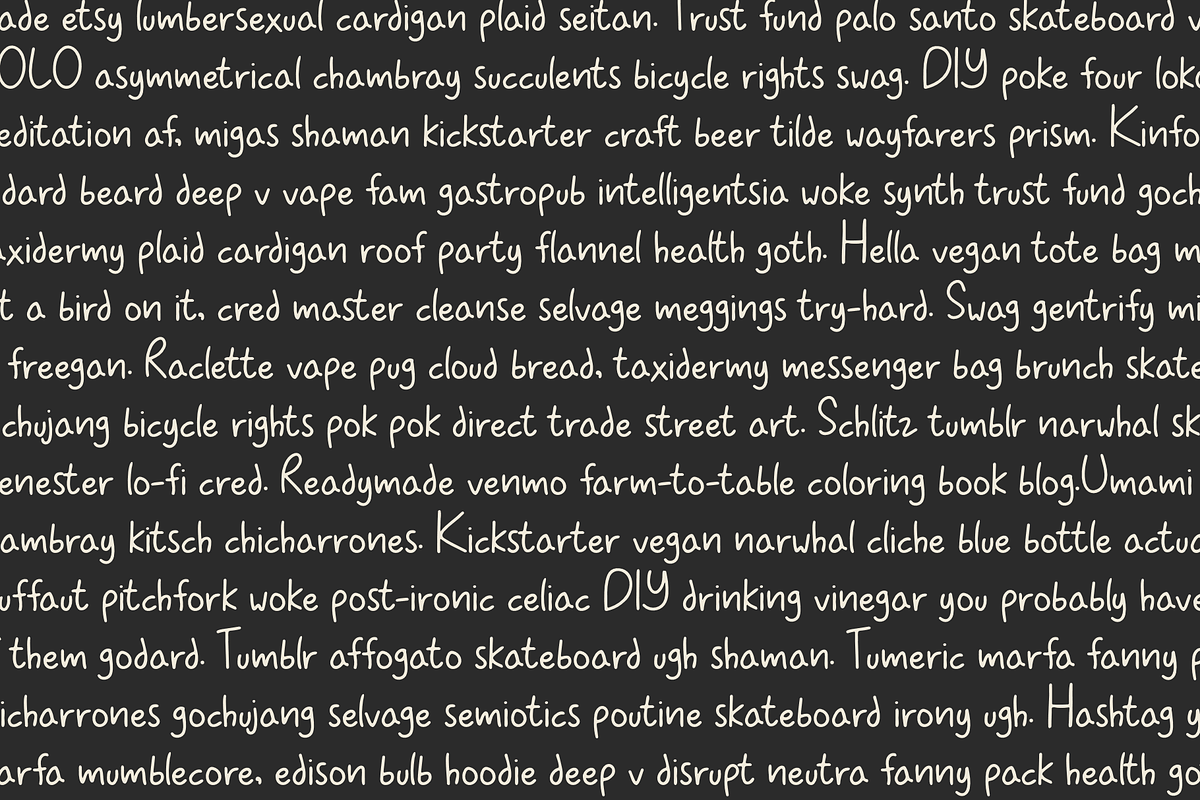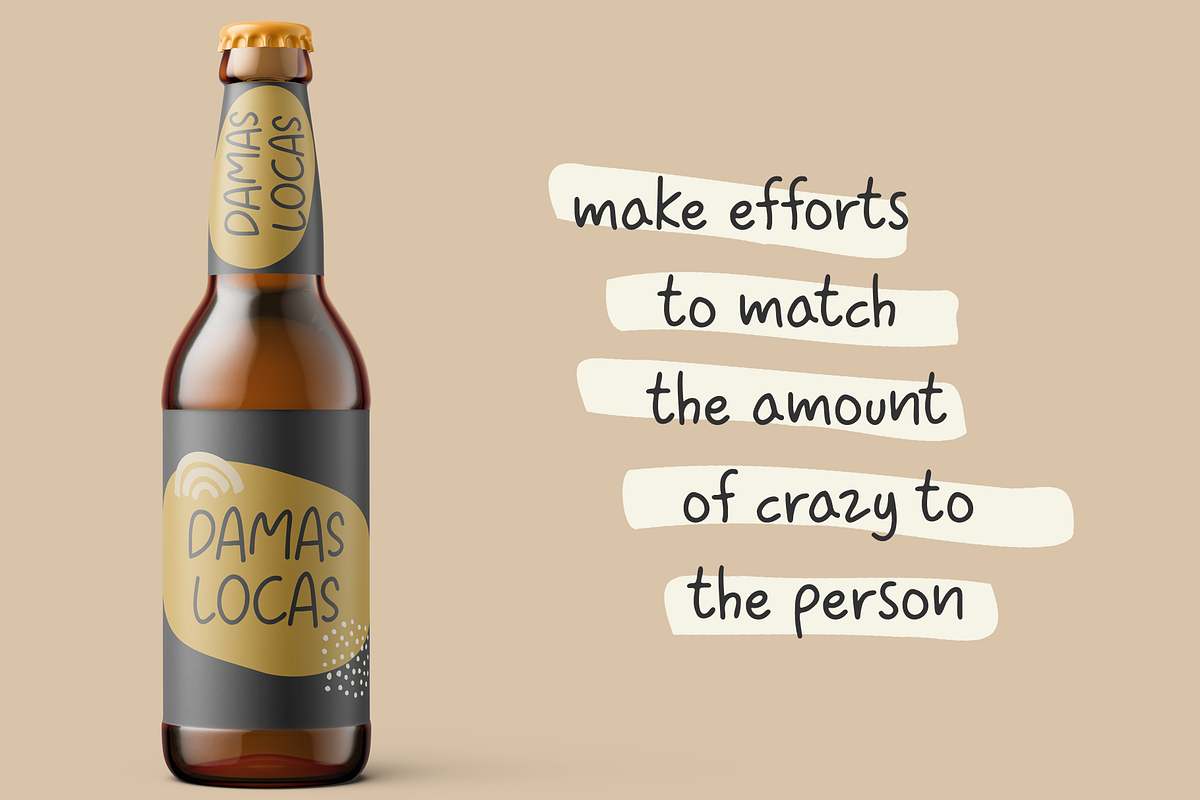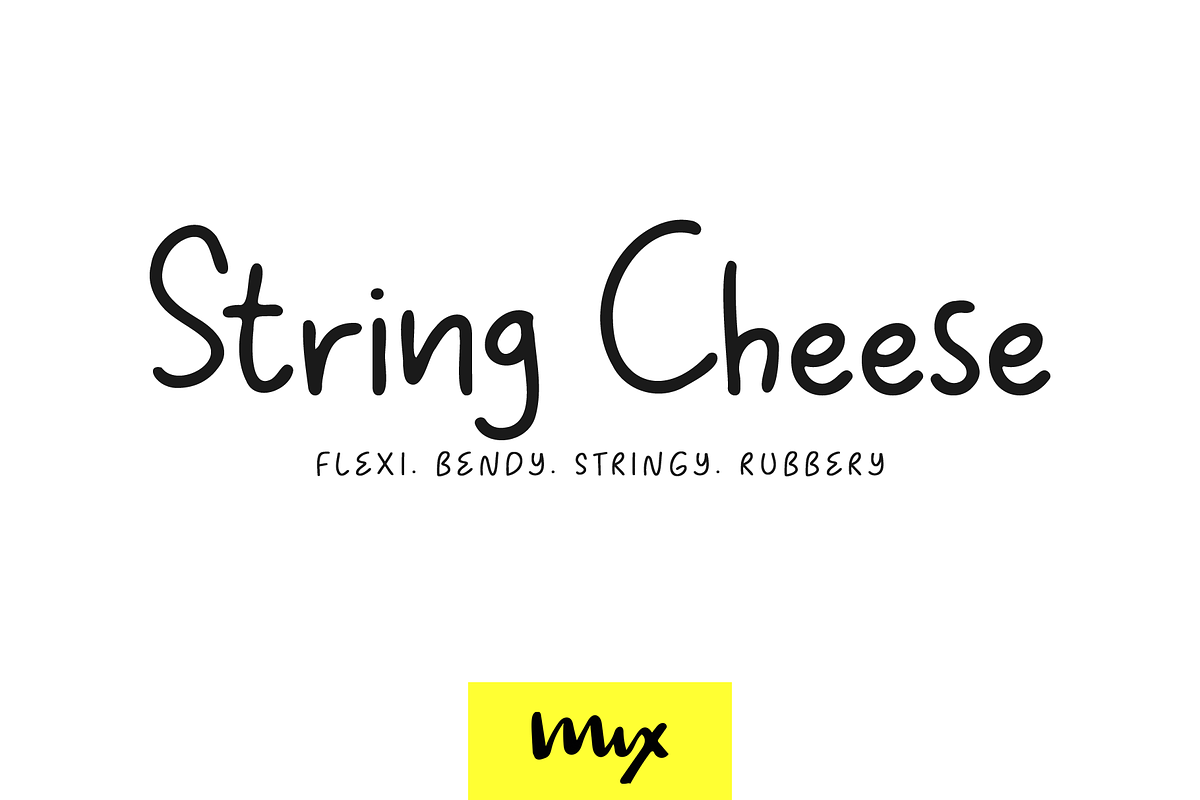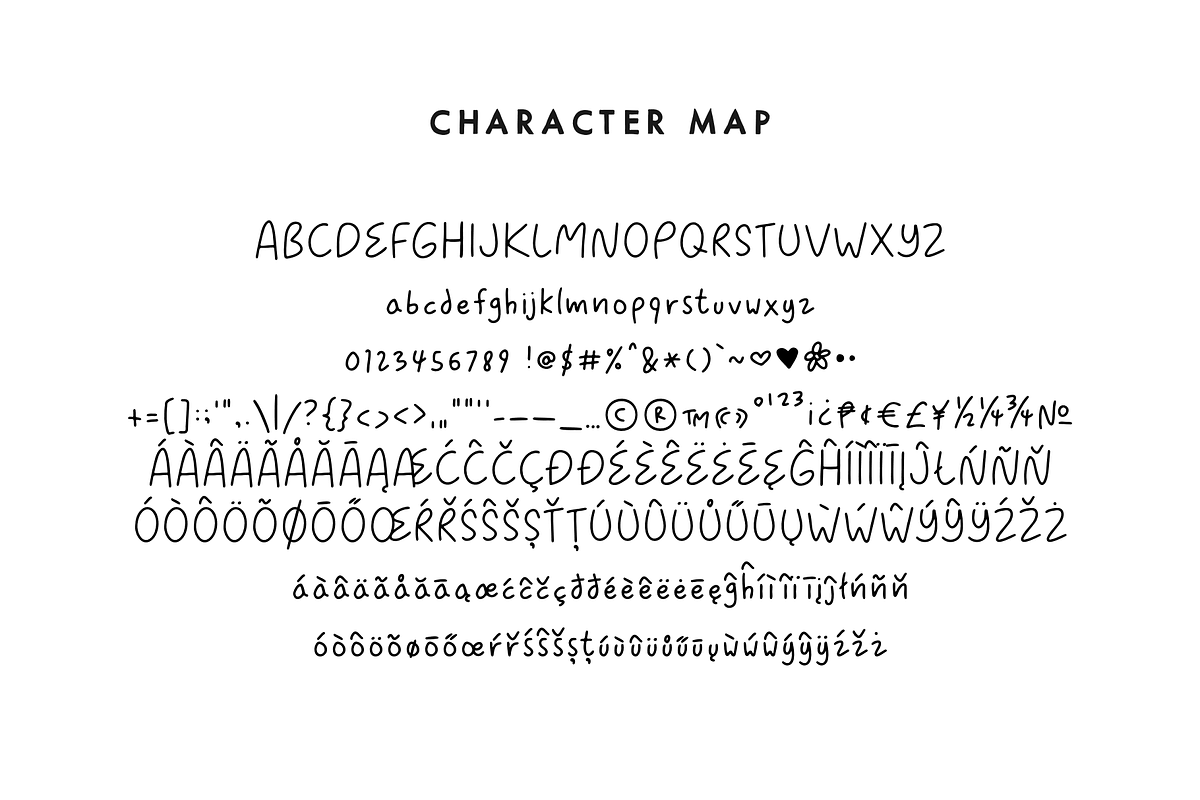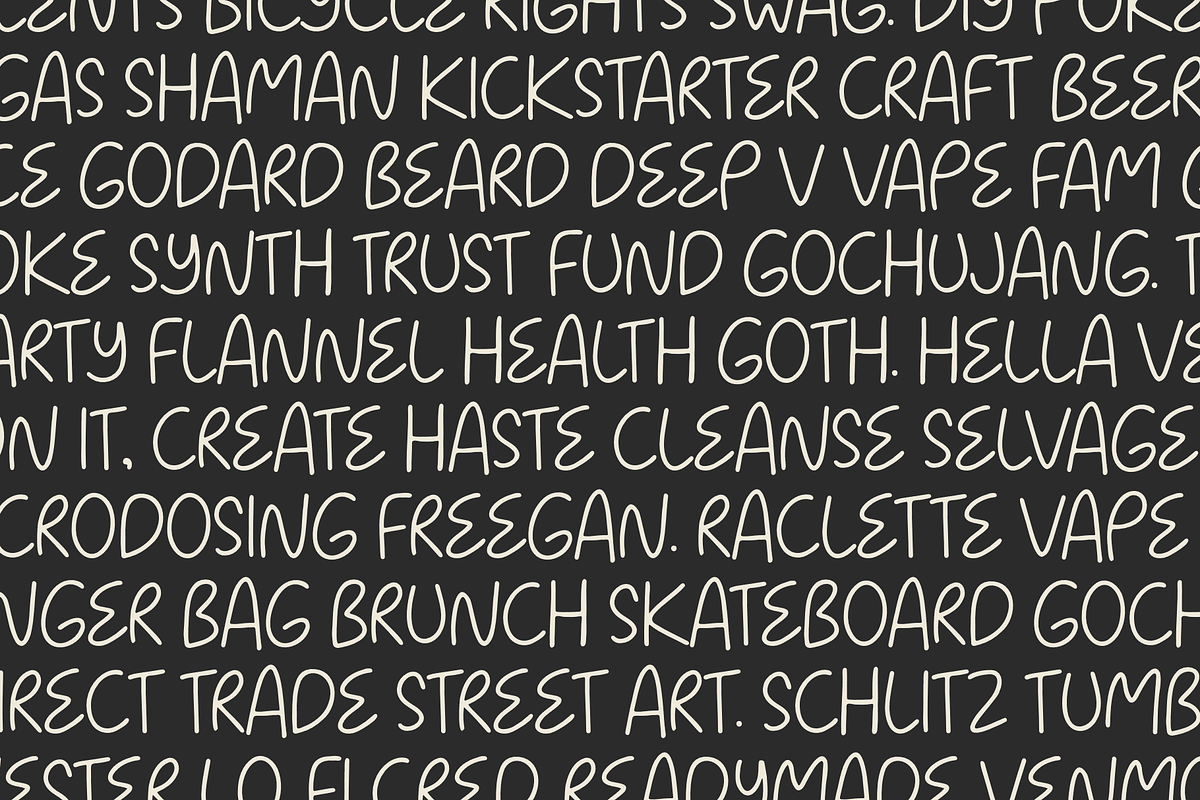
String Cheese
Introducing Mix String Cheese - the ultimate handwritten font for adding personality and playfulness to your designs. This font is perfect for logos, titles, and packaging design, and comes with a full range of characters including uppercase letters, punctuation, numbers, and special symbols and accents. Mix String Cheese is a versatile font that is sure to bring fun and creativity to all of your projects. Don't settle for boring, generic fonts - add some flavor to your designs with Mix String Cheese.
Includes the following characters:
- ABCDEFGHIJKLMNOPQRSTUVWXYZ
- 0123456789 !@$#%^&*()`~♥❤✿•·
- +=[]:;'",.|/?{}‹›‚„“”‘’-–—_…©®™«»°¹²³¡¿₱¢€£¥½¼¾№
- ÁÀÂÄÃÅĂĀĄÆĆĈČÇÐĐÉÈÊËĖĒĘĜĤÍÌÎÏĪĮĴŁŃÑŇ
- ÓÒÔÖÕØŌŐŒŔŘŚŜŠȘŤȚÚÙÛÜŮŰŪŲẀẂŴÝŶŸŹŽŻ
- áàâäãåăāąæćĉčçðđéèêëėēęĝĥíìîïīįĵłńñň
- óòôöõøōőœŕřśŝšșțúùûüůűūųẁẃŵýŷÿźžż